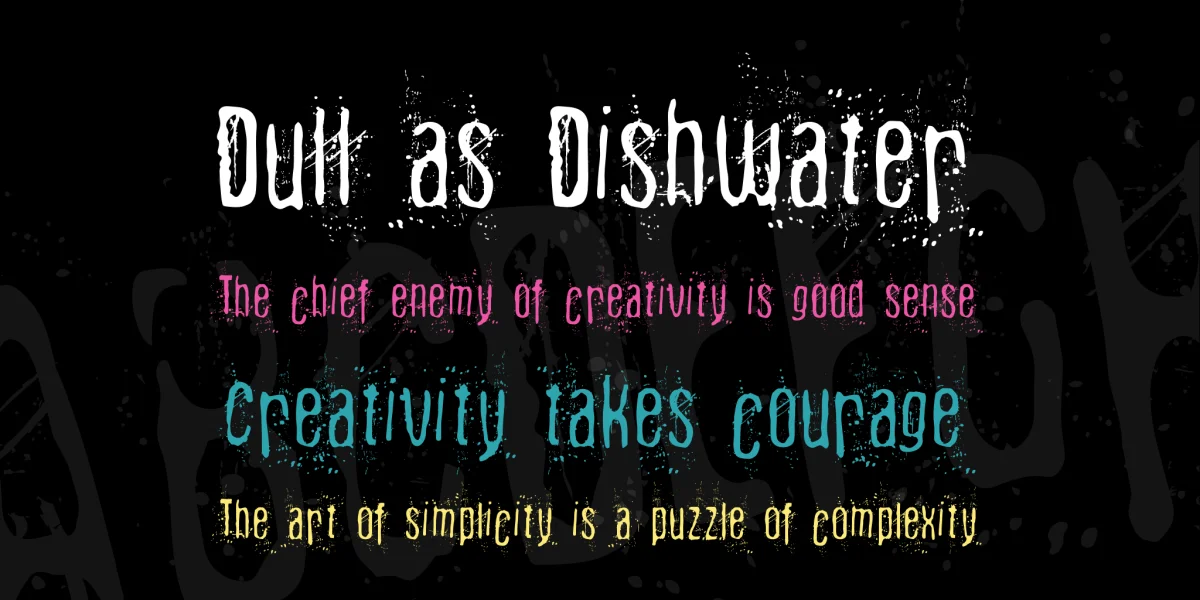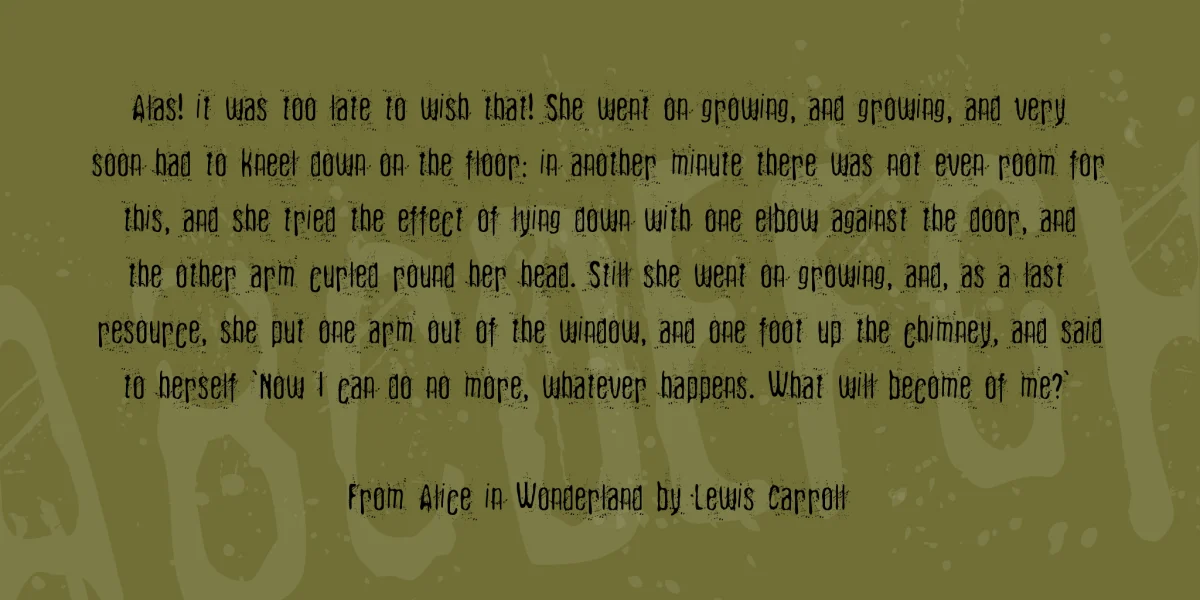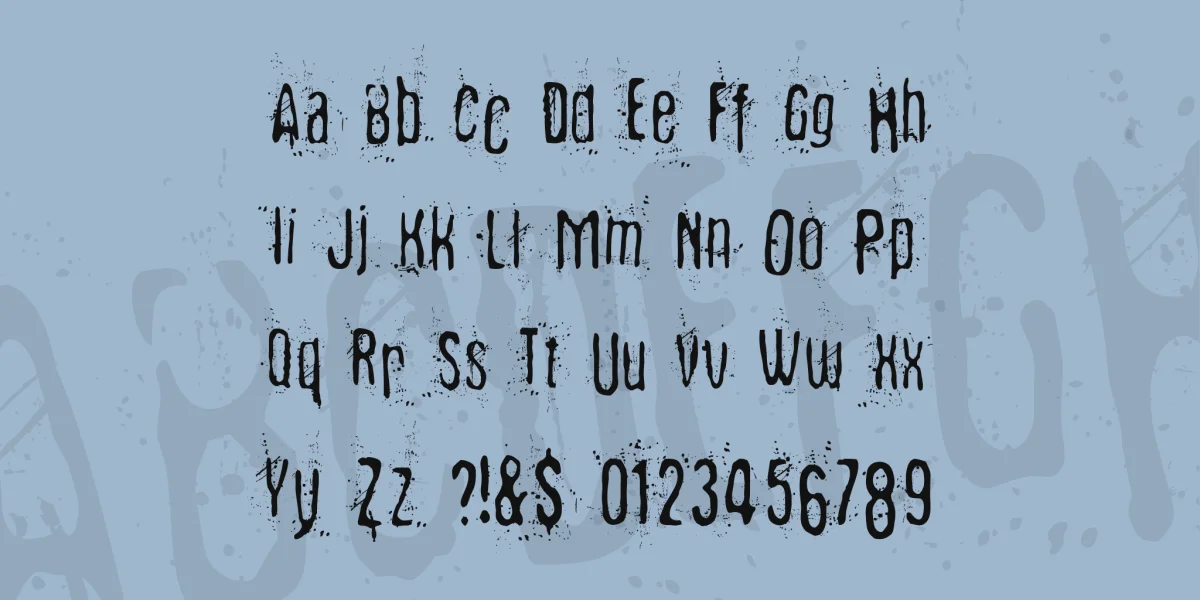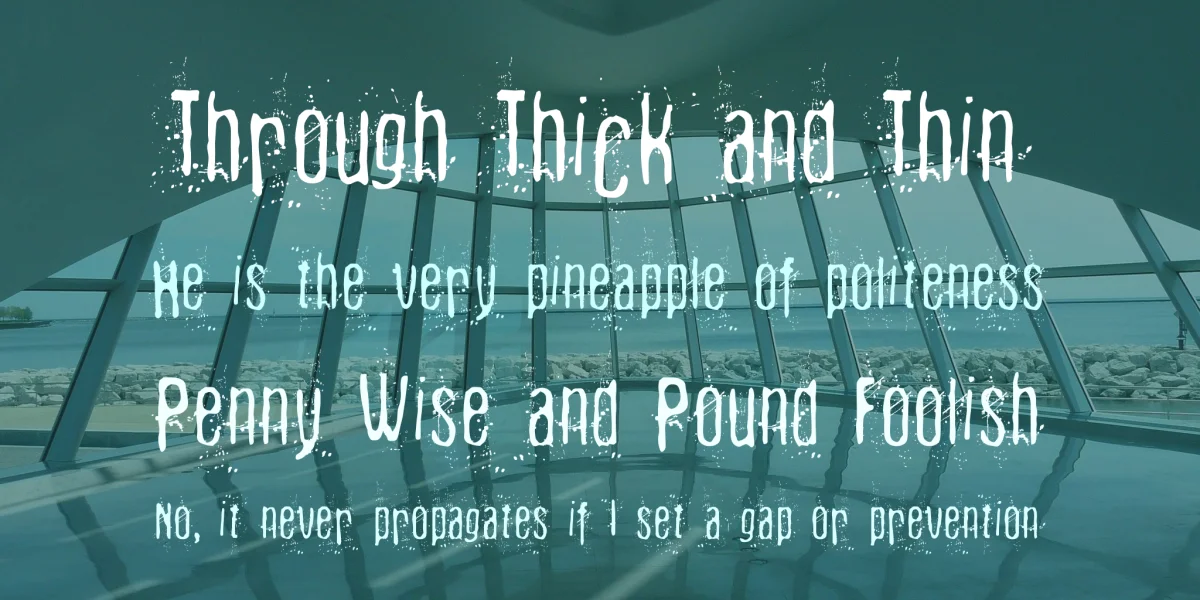
»Fibyngerowa« is totally free font, enjoy it in your work. It is an informal grunge font, available for free download and use. Download of this grunge font for your collection. With this dirty, distressed, condensed and grungy font you can create a superb grunge design. Inspired by B-Movie Posters and by the typography of the 1990's years. Once upon a time was a Switzerland based San serif Font. The applied process on him was next: blur, levels, print, scan, blur, levels, print, scan, overlapping of criminal photos, levels, create outlineas and voilá...